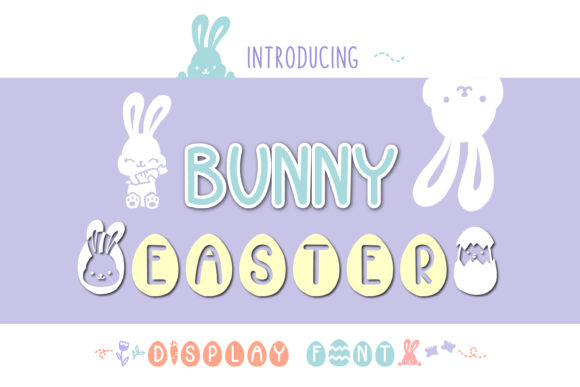
The Bunny Easter Font: A Quirky and Sweet Display Font for Your Creative Projects
I still remember the time I was working on a project for a children’s birthday party, and I was struggling to find the perfect font to match the playful and whimsical theme. The client wanted something that would appeal to kids and adults alike, but I just couldn’t seem to find the right fit. That’s when I stumbled upon the Bunny Easter font, and it instantly became the perfect solution. In this article, I’ll share my experience with this font, its features, and how to use it on different platforms.
An Honest Review of Bunny Easter Font
The Bunny Easter font is an incredibly quirky and sweet display font that has become a staple in my design toolkit. Here’s what I love about it:
• ✨ Unique and playful design that’s perfect for cartoon-related designs, children’s games, and other creative projects that require a lovely touch.
• ✅ Highly legible, even at large sizes, making it perfect for headings and titles.
• 💕 Extensive character set, including support for multiple languages.
However, there are a few quirks to be aware of:
• 🤔 The font can be a bit too playful for more formal designs, so use it judiciously.
• ⚠️ Some characters may not work well at very small sizes, so it’s best to use it for headlines and titles.
3. Experiment with the font’s OpenType features, such as stylistic alternates and glyphs, to add more personality to your design.
4. Take advantage of the font’s OpenType features, such as ligatures and stylistic sets, to add more depth to your design.
The Backstory of Bunny Easter Font
Bunny Easter font was designed by a team of creatives who wanted to create a font that would capture the playful and whimsical spirit of Easter. The font was inspired by traditional Easter decorations and the joy of childhood. The designers wanted to create a font that would be perfect for designs that require a touch of playfulness and fun.
What is the Bunny Easter font best used for? The Bunny Easter font is best used for cartoon-related designs, children’s games, and other creative projects that require a playful and whimsical touch.